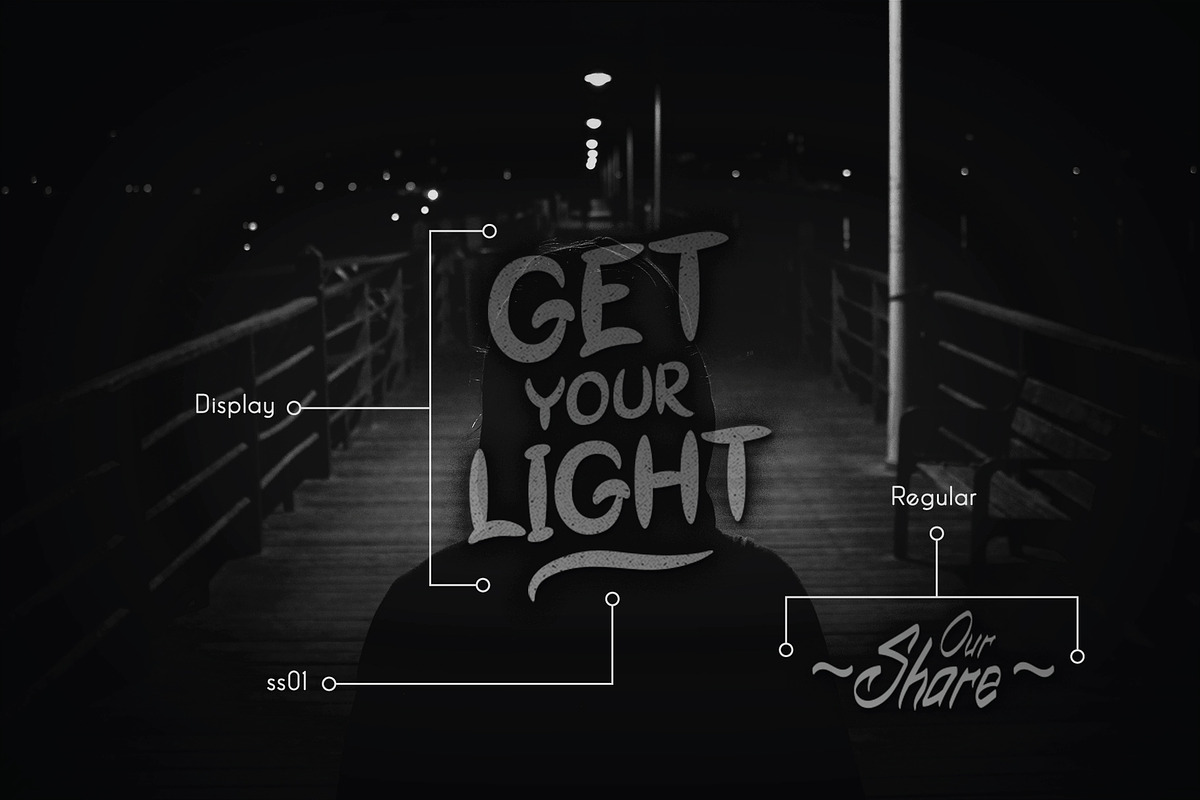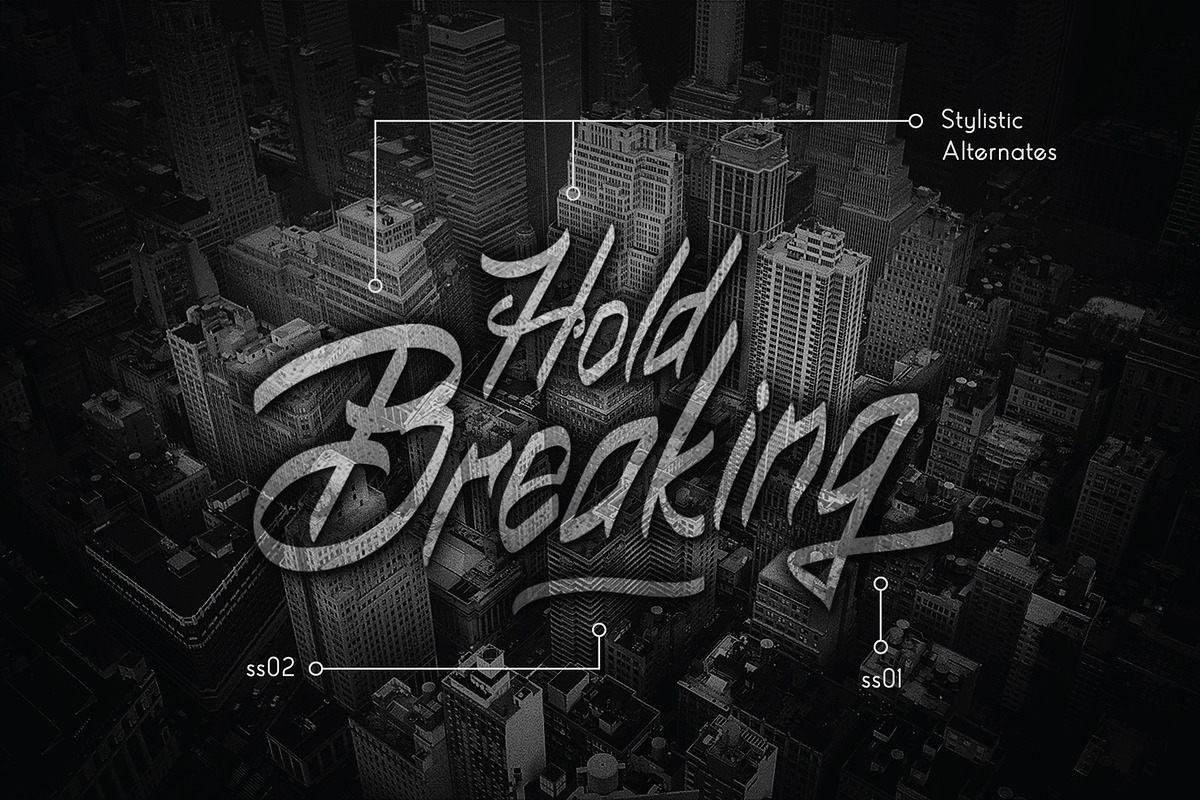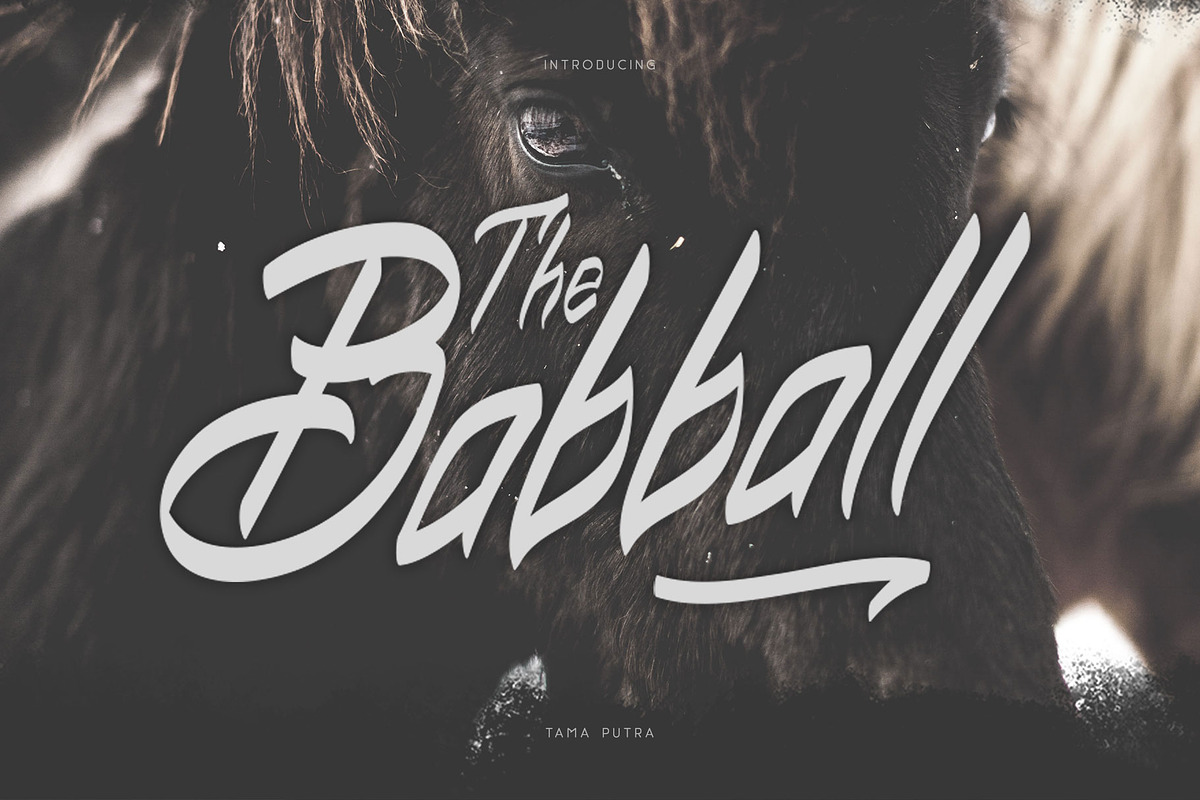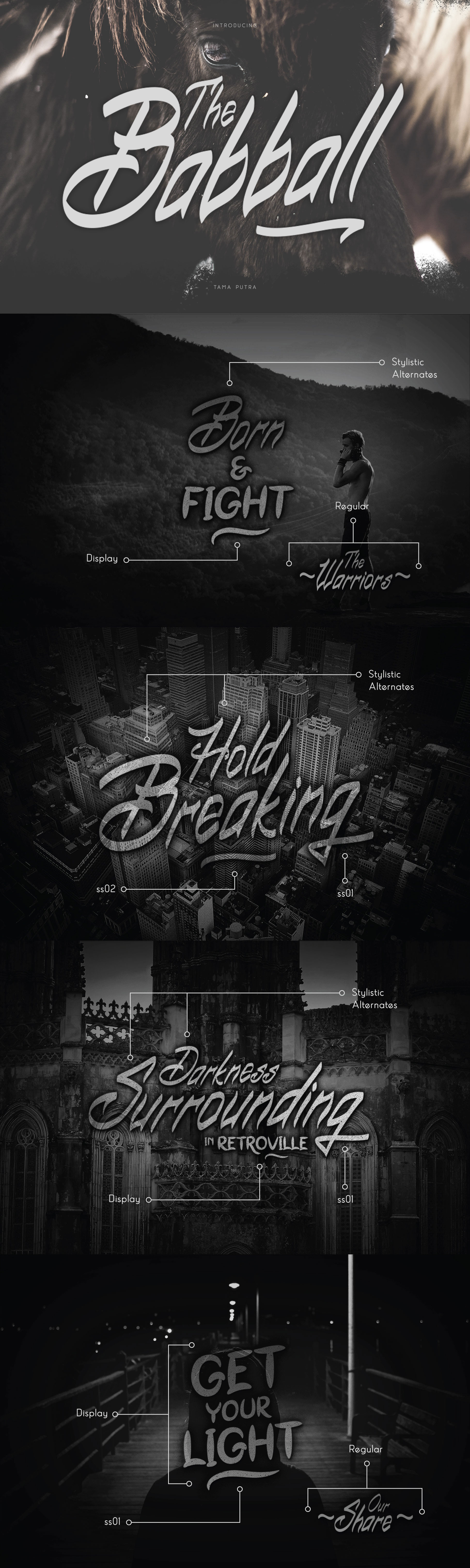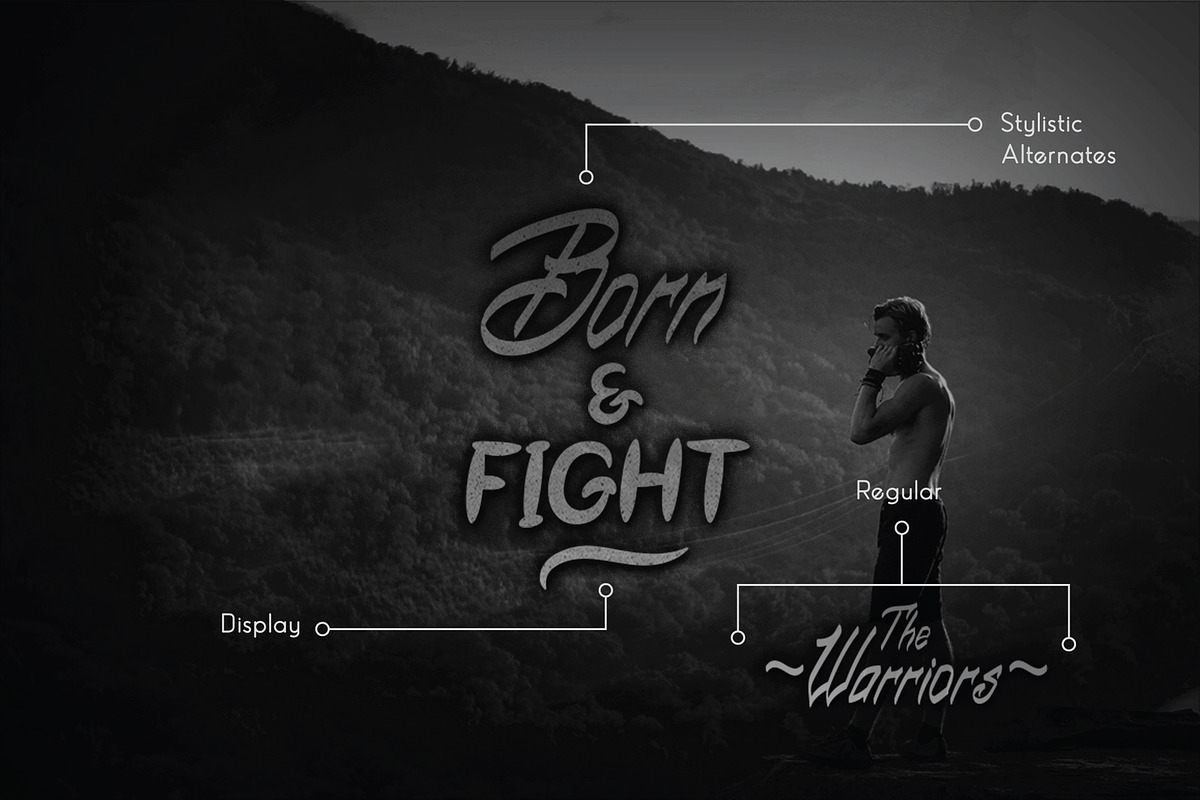
Babball Handwritten Typeface
Babball Font Duo
Babball is a handwritten and display font duo.
It includes a full set of uppercase and lowercase letters as well as multi-lingual and currency support, numerals, punctuations, alternates.
- Character Set A-Z (Uppercase & Lowercase)
- ss01, ss02
Babball font duo is suitable font for creating beautiful things and many creative work.